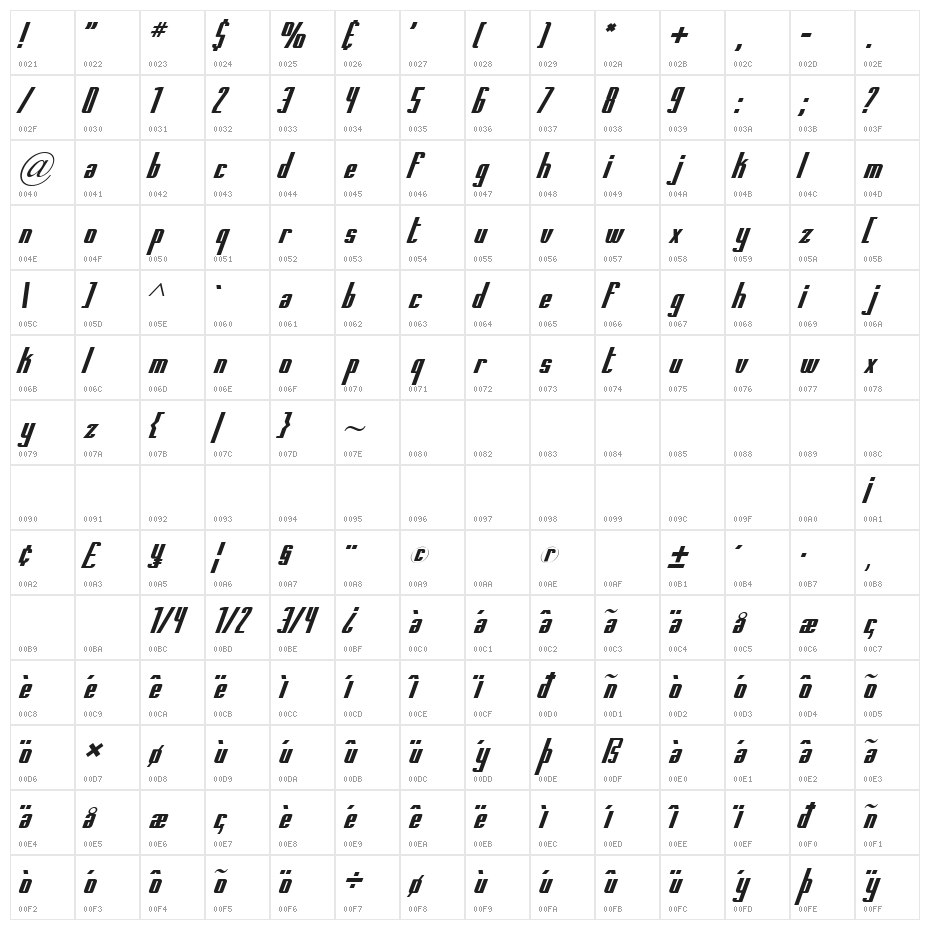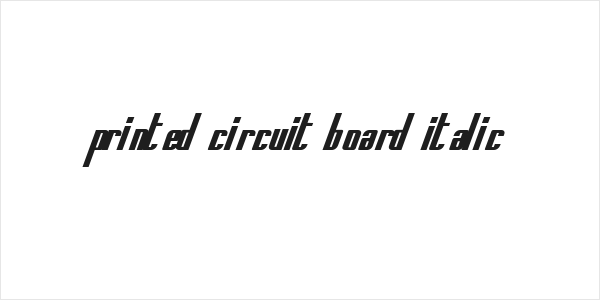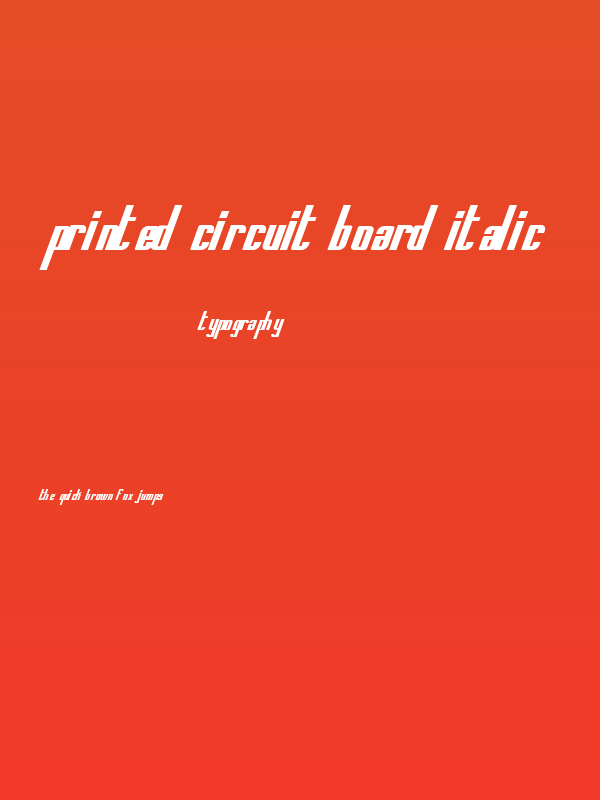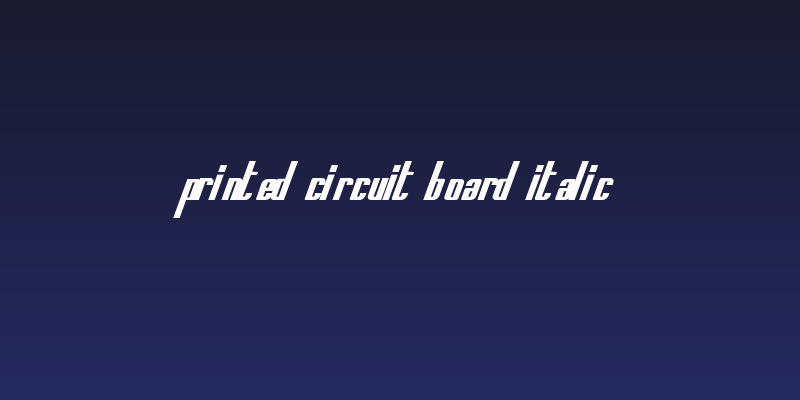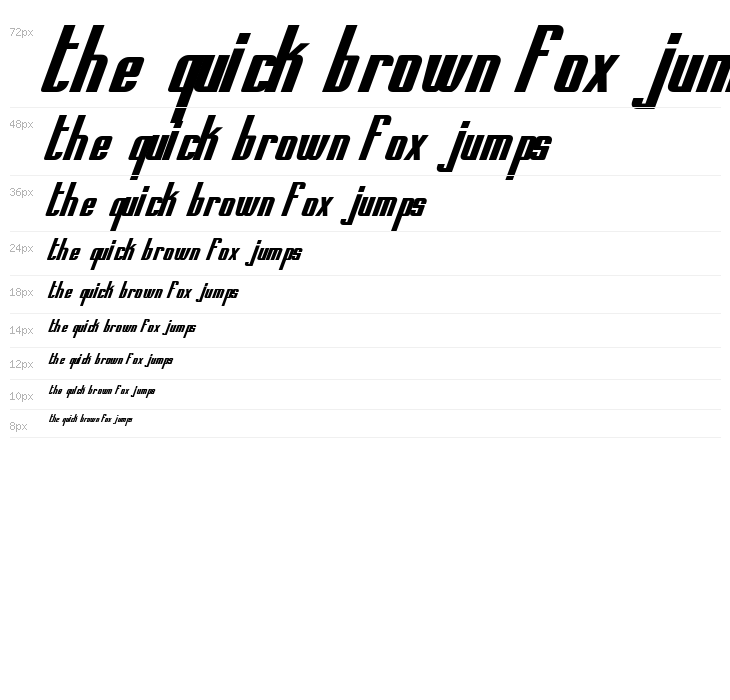
Printed Circuit Board Italic Font
Printed Circuit Board Italic Description
This font features a bold, italicized style with a futuristic and technological aesthetic. The characters are sharply angled, giving them a dynamic and forward-leaning appearance. The strokes are thick and consistent, contributing to a strong visual impact. The design incorporates a sense of movement and speed, reminiscent of digital or electronic themes. The uppercase and lowercase letters maintain a uniform style, with the lowercase letters slightly smaller in size but equally bold. Numbers and special characters follow the same angular and italicized design, ensuring cohesion across all elements.
| Proposed Projects | Ideal for tech-themed projects, digital interfaces, video game graphics, or branding for electronics. |